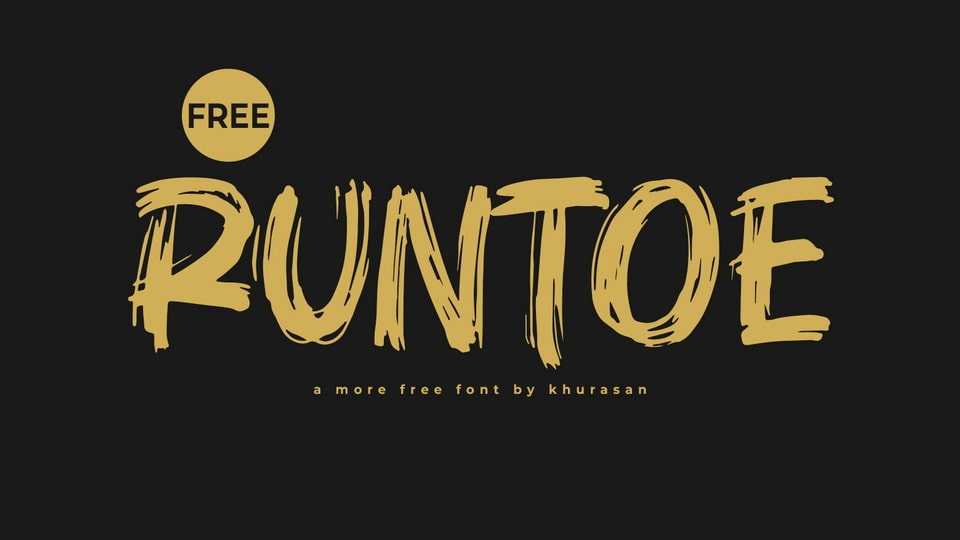
Download Runtoe font, a grungy hand-painted typeface that embodies raw energy and artistic flair. Runtoe font is crafted with bold brushstrokes and rugged textures, creating a typographic experience that feels both powerful and expressive.